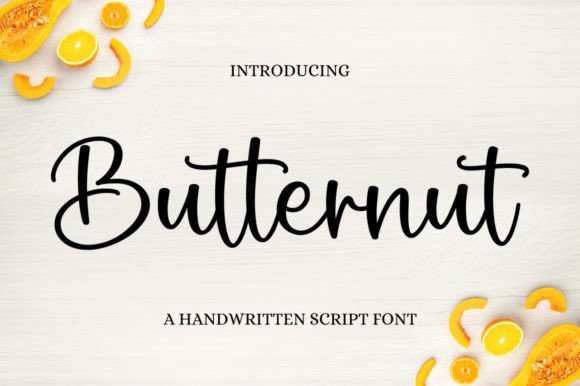
The Perfect Script: Unveiling the Elegance of Butternut Font
Have you ever found yourself in the middle of a creative project, staring at a blank page, and desperately searching for the perfect font to bring your vision to life? That’s exactly where I was when I discovered the Butternut Font – and let me tell you, it’s a game-changer.
This delicate and refined script font is a masterclass in sophistication and elegance, making it the perfect choice for a wide range of projects, from wedding invitations to social media posts. With its incredibly versatile style, the Butternut Font is a valuable addition to any designer’s toolkit, offering endless possibilities for creativity and self-expression.
Whether you’re a seasoned pro or just starting out, the Butternut Font is sure to become your go-to choice for any project that requires a touch of class and sophistication. So why settle for anything less when you can have the best?
Butternut Font Key Features
- Font Family: Butternut is a script font family, offering a range of styles including Regular, Italic, Bold, and Bold Italic.
- Unique Characteristics: Butternut’s distinctive, handwritten feel and elegant flourishes make it perfect for adding a touch of sophistication and personality to designs.
Review of Butternut Font
Overall, I’m quite impressed with the Butternut Font. The font designer has done a great job of creating a unique and versatile typeface that can be used in a variety of contexts. ✨ The font’s organic feel and natural curves make it perfect for creating a warm and inviting atmosphere in branding, packaging, and even digital interfaces.
Here are some of the things that work well with Butternut Font:
- Highly customizable: Butternut Font comes with a wide range of OpenType features that allow for easy customization and styling.
- Excellent for body text: The font’s readability and legibility make it ideal for long blocks of text, such as articles and blog posts.
- Supports a wide range of languages: Butternut Font includes support for over 100 languages, making it a great choice for international brands.
- May not be suitable for formal or technical contexts: Butternut Font’s organic feel may not be the best choice for formal or technical documents, such as resumes or technical manuals.
- Lack of italic and bold weights: While the font includes a range of weights, it lacks italic and bold versions, which may limit its use in certain contexts.
- Not suitable for small text sizes: The font’s thick strokes and heavy lines may make it difficult to read at small text sizes.
Overall, I think Butternut Font is a great choice for designers and brands looking for a unique and versatile typeface. While it may have some limitations, its strengths far outweigh its weaknesses, and it’s definitely worth considering for your next project.
Butternut Font is suitable for:
– Headings and titles in marketing materials
– Branding and logo designs
– Social media posts and graphics
– Print materials like brochures and flyers
– Adding a vintage or rustic touch to your designs